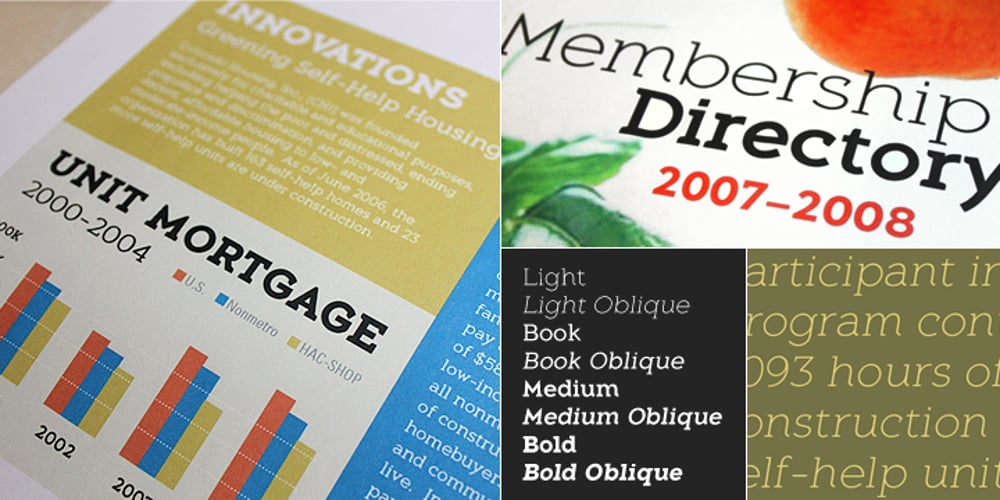
Aeron Font Family was designed by Galen Lawson and published by District. Aeron contains 8 styles and family package options. Aeron started with a no-nonsense geometric sans-serif structure that grew into a functional semi-serif family of fonts. Half-rounded slabs mix with curvy and squared-off terminals for a personable yet structured family that works in all sizes.